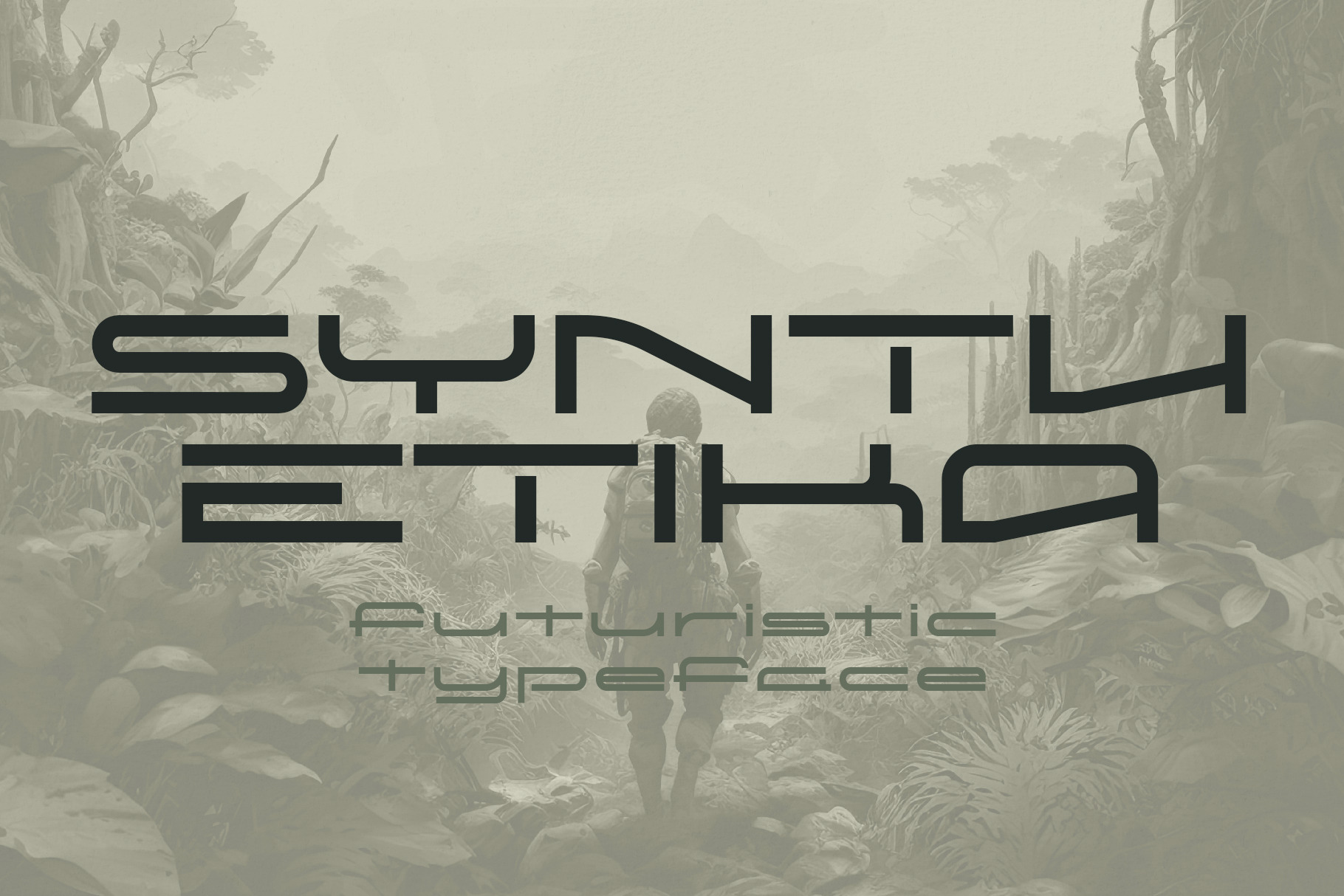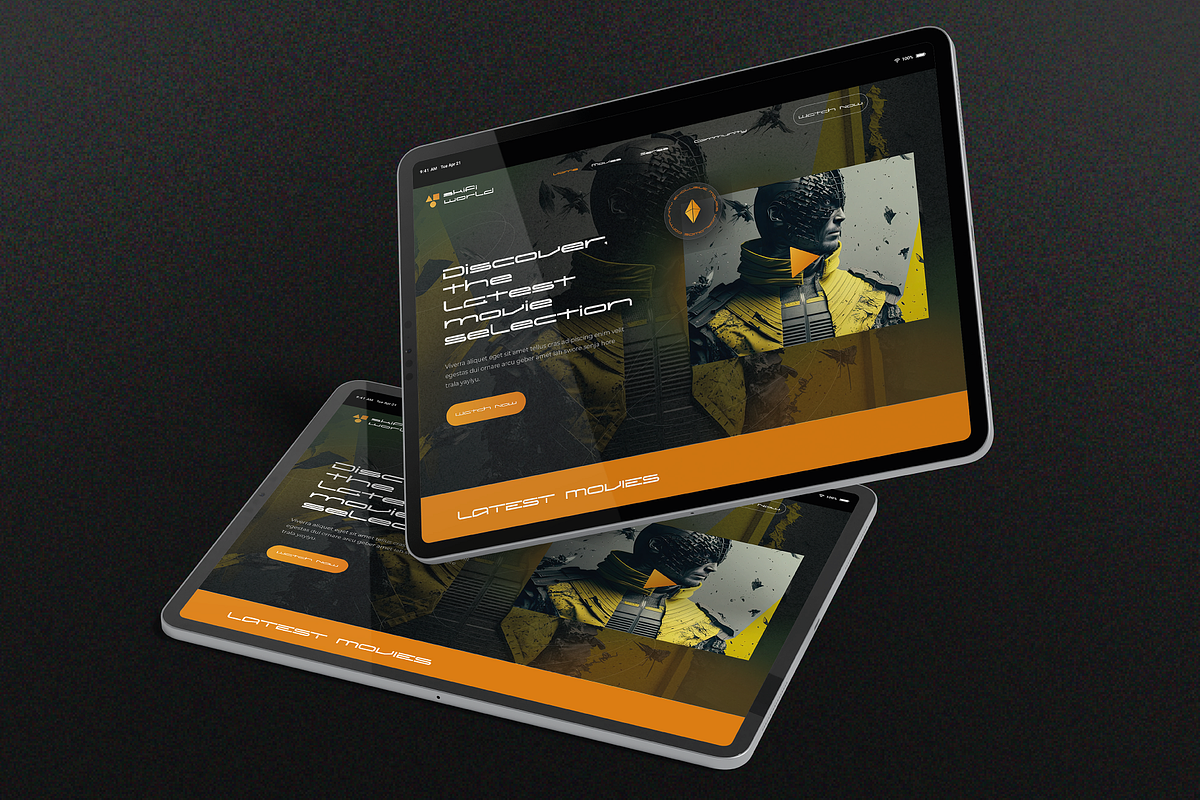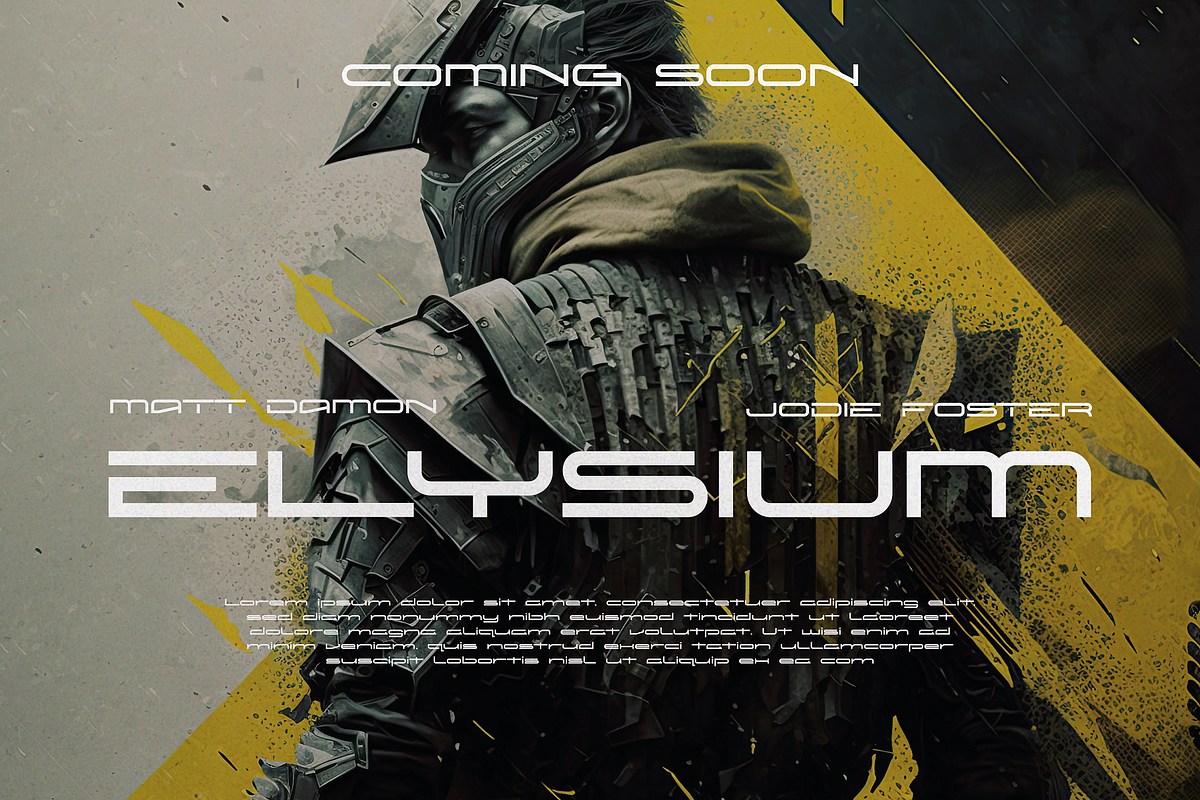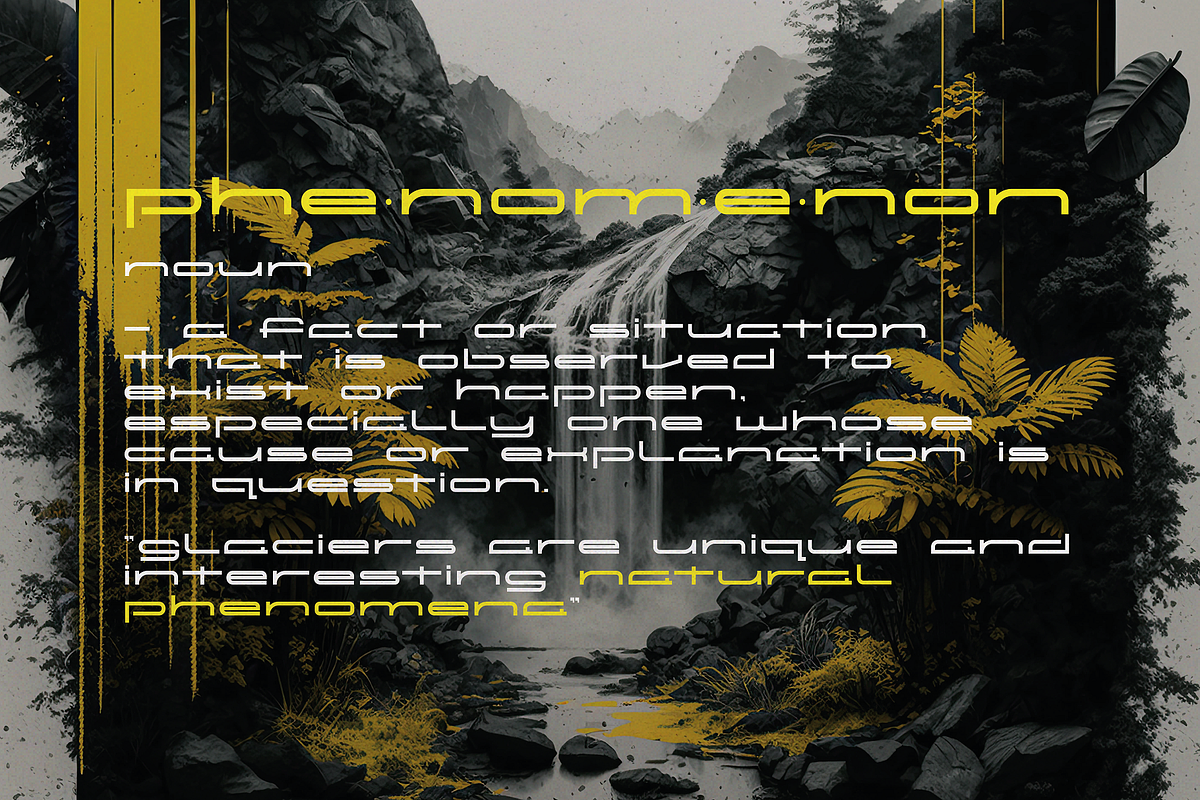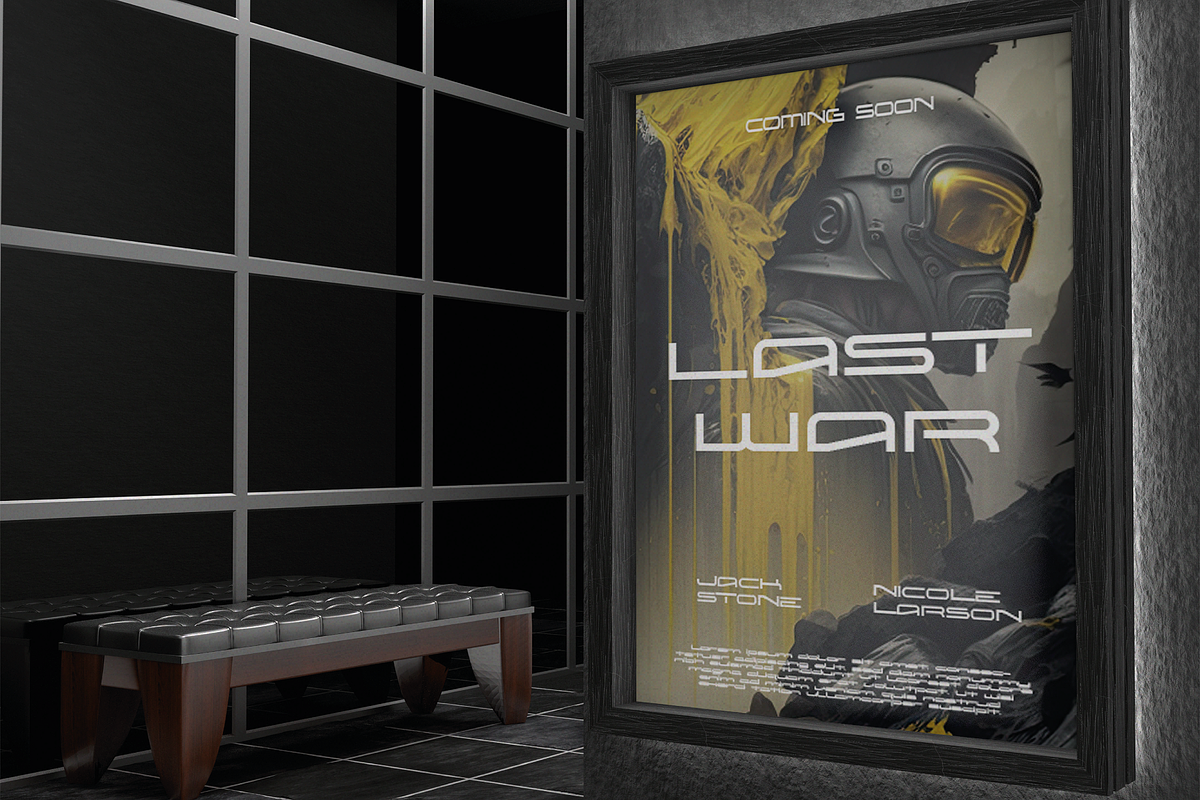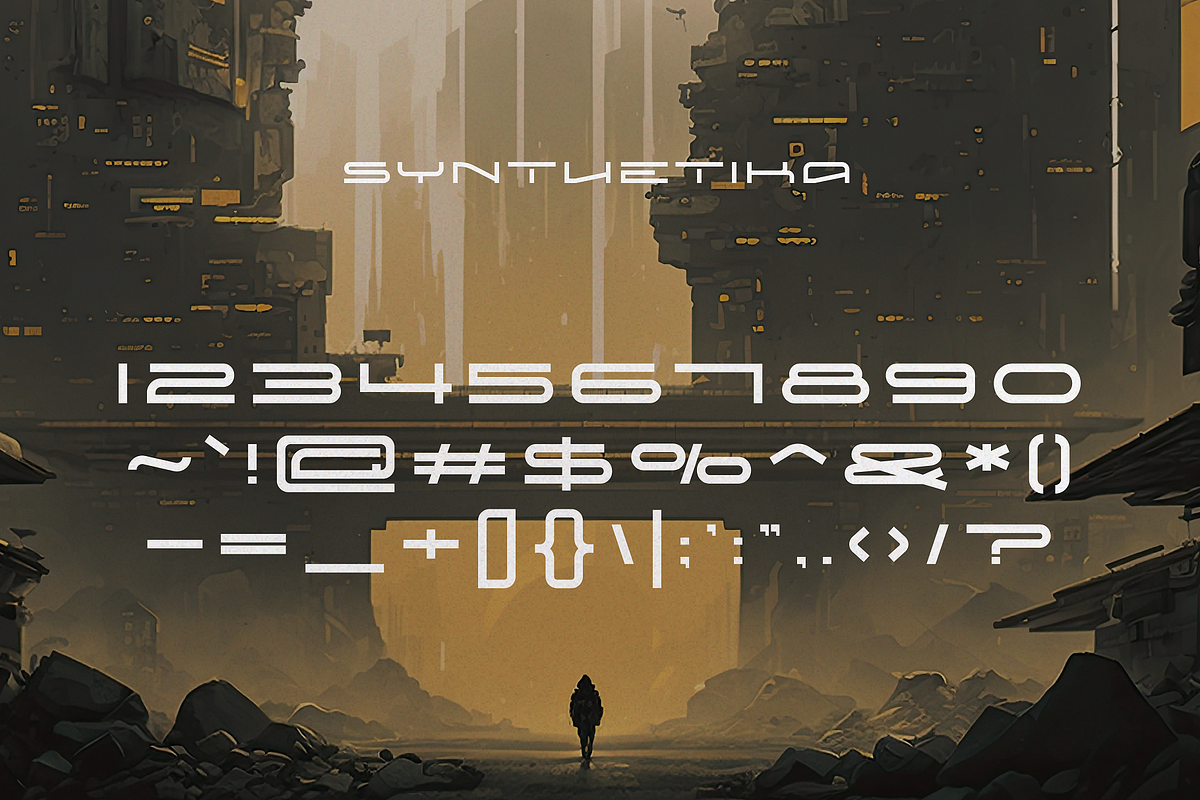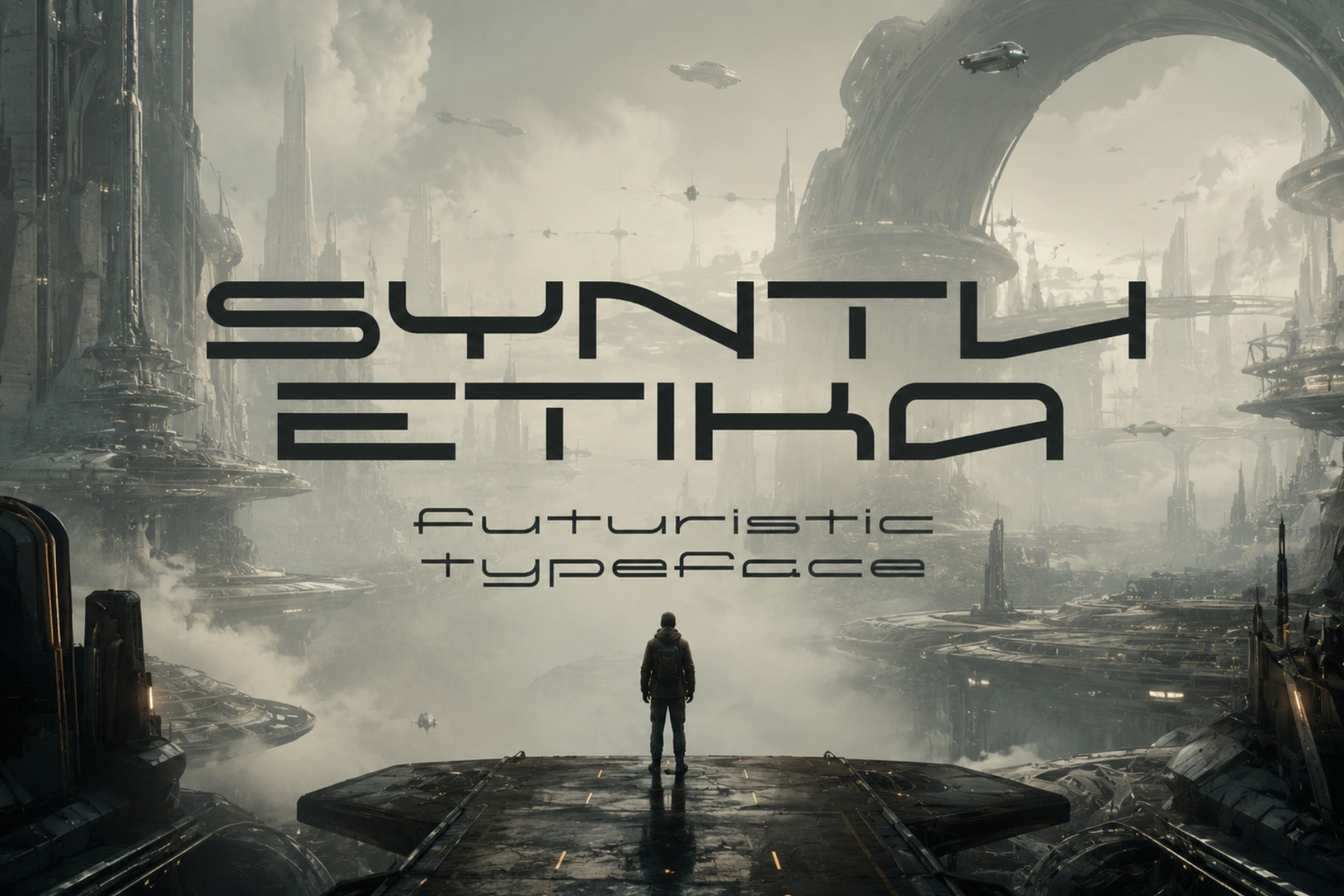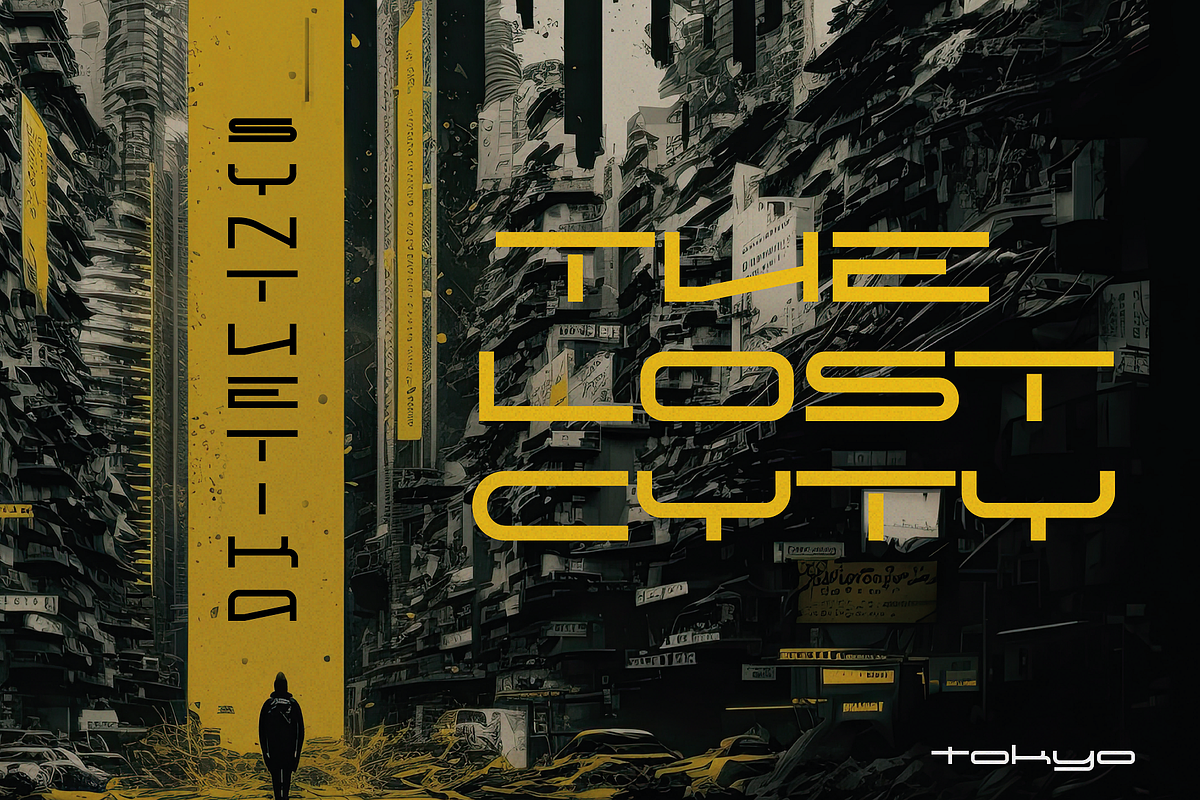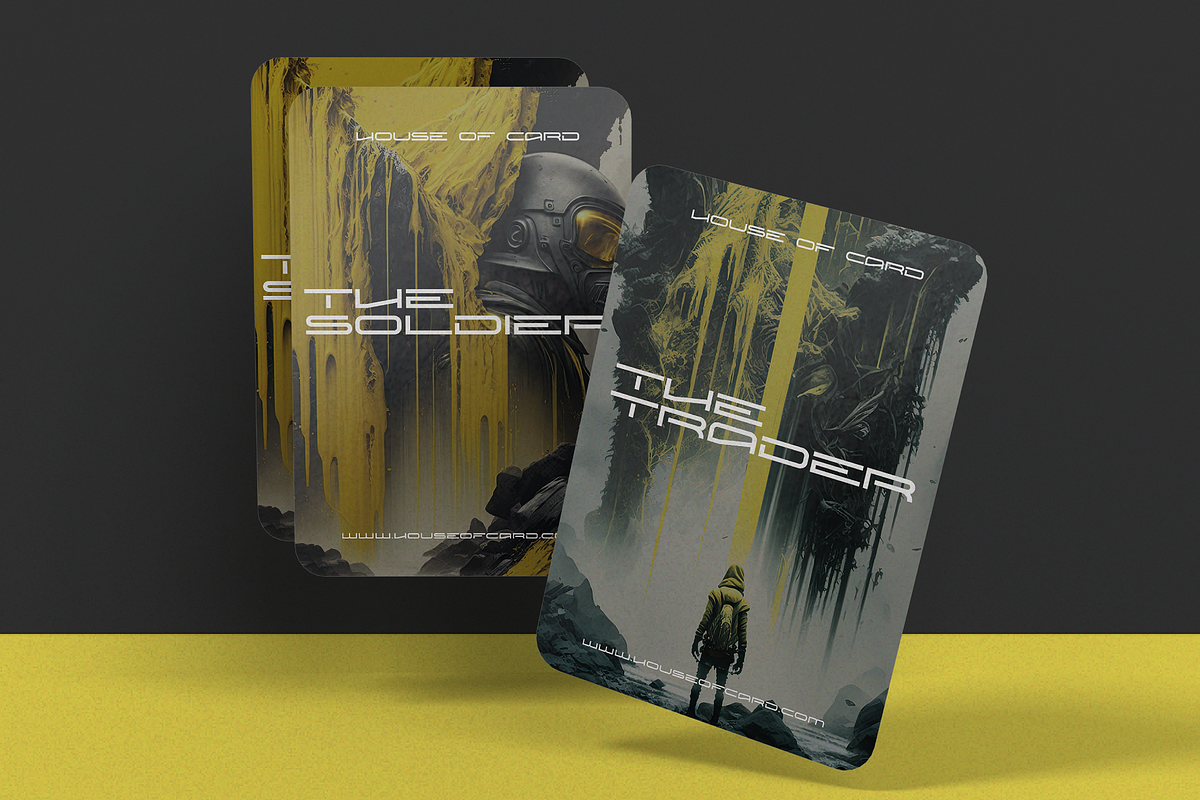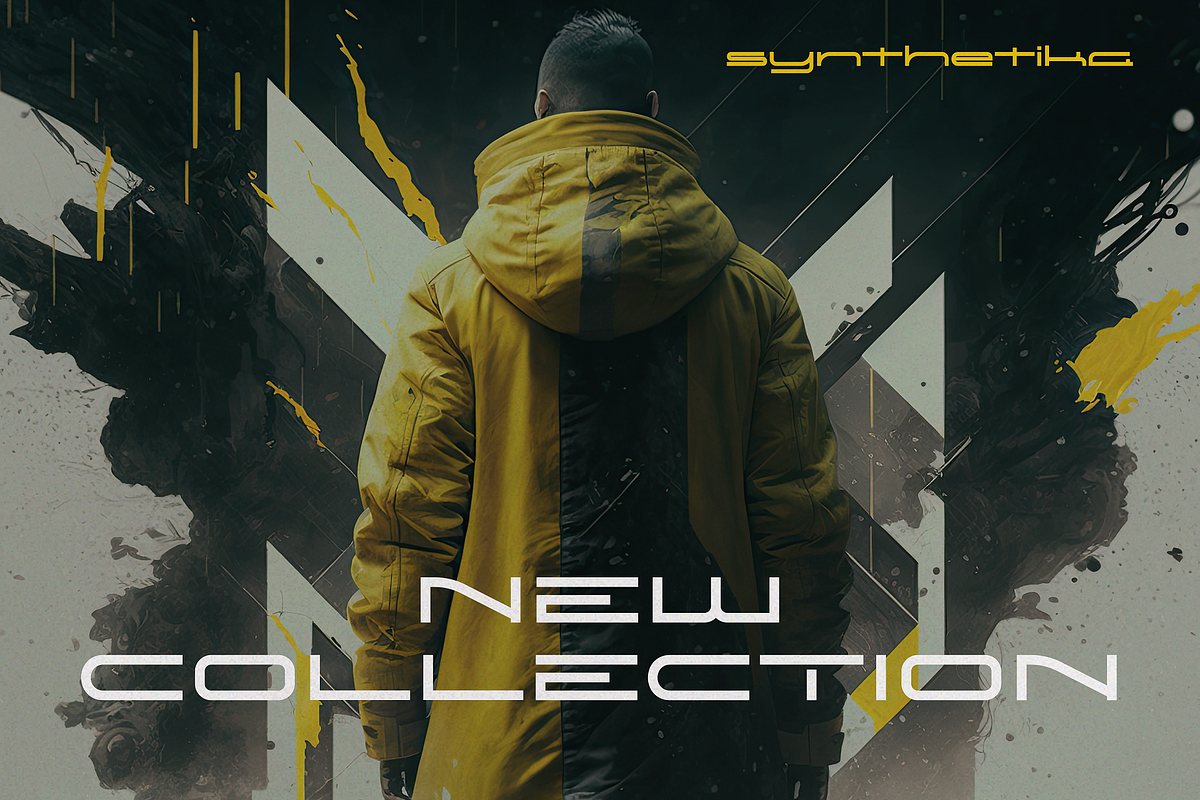
Synthetika - Futuristic Typeface
Synthetika is a sleek and modern typeface designed for the future. With its futuristic curves and sharp edges, it is perfect for movie titles, design projects, posters, and more.
This typeface features a unique blend of geometric shapes and sharp angles that give it a bold and powerful appearance. Its sharp corners and clean lines create a sense of precision and modernity, making it ideal for projects that demand a futuristic and cutting-edge look.
Whether you are creating a user interface or designing a sleek technology product, Synthetika is the perfect choice to help you bring your vision to life.